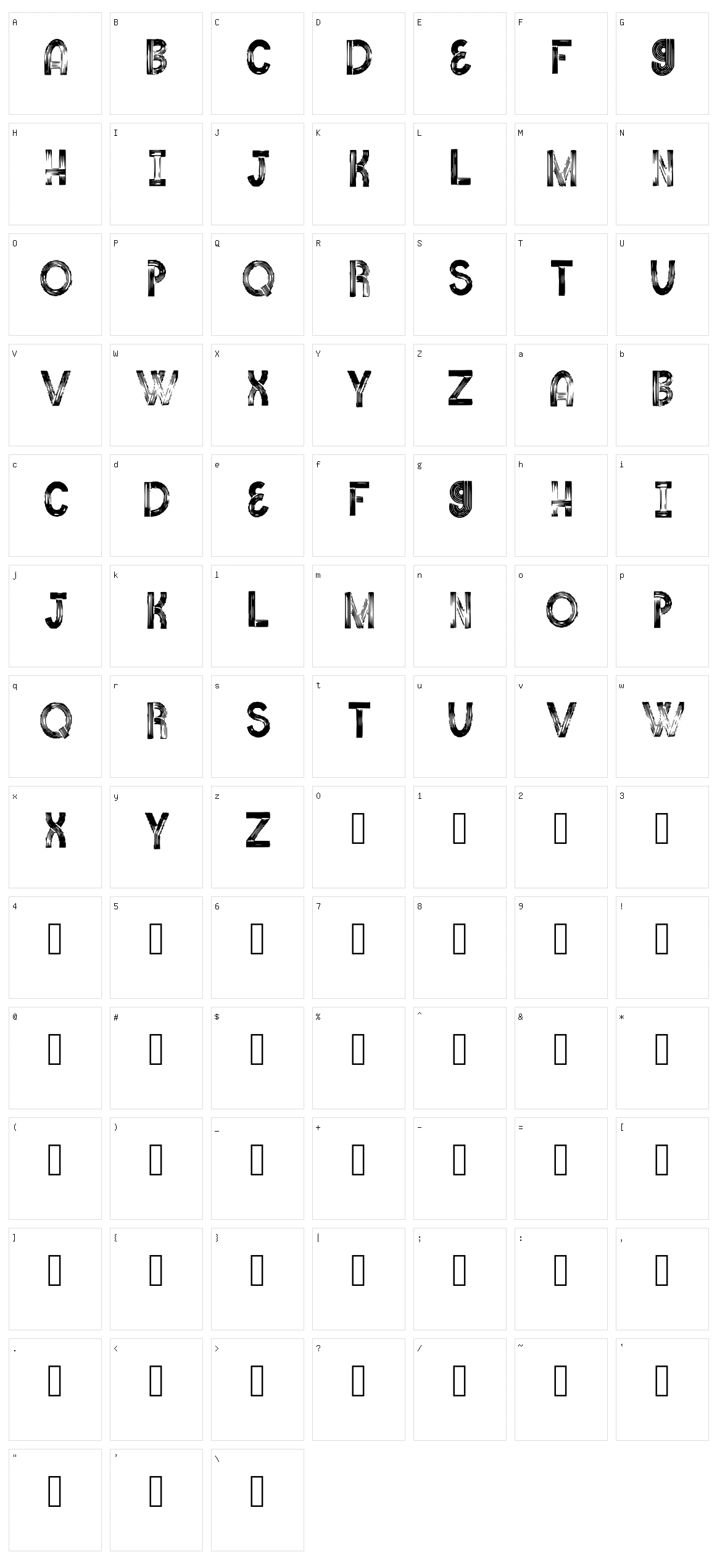
The free font Noodles is carefully designed by Kahlia Bayani, showcasing a thoughtful balance of creativity and usability and falls under the Groovy font style. When you download the ZIP file, it contains only 29.63 KB of font files, making it lightweight and quick to download. Please review the license details below to understand permitted usage and distribution rights. If license information is not available, we recommend using this font for personal projects only or contacting the author directly for commercial usage permissions.